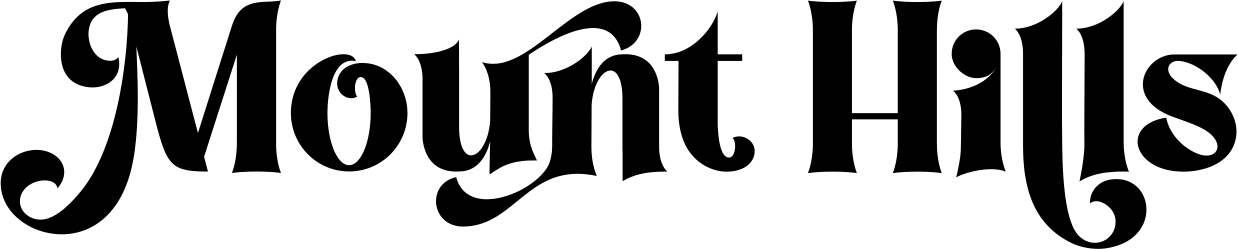
Mount Hills Font
Mount Hills font is one of the fonts with its cursive script lines, has a unique element and friendliness in the characters that make your design delightful to the audience.
One of the features of this curvy font is that you can use it in designing mysterious themes and posters such as movies. In addition, if your client likes the modern design, how much better to put this hand-written font on the requested business card?